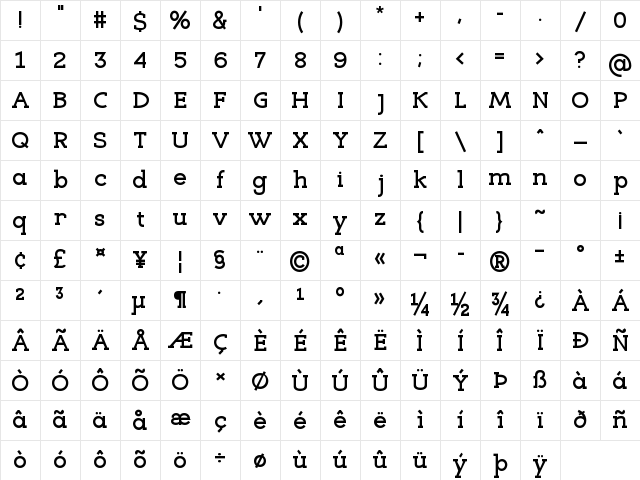
Eligible Bold Free Font
Eligible Bold
Eligible Family
Design Context for Eligible
Eligible is a composed and adaptable typeface that performs quietly and consistently across a wide range of design contexts. Its bold stroke weight gives it real presence on the page.